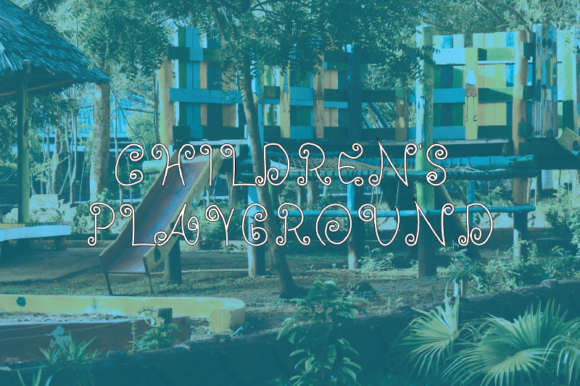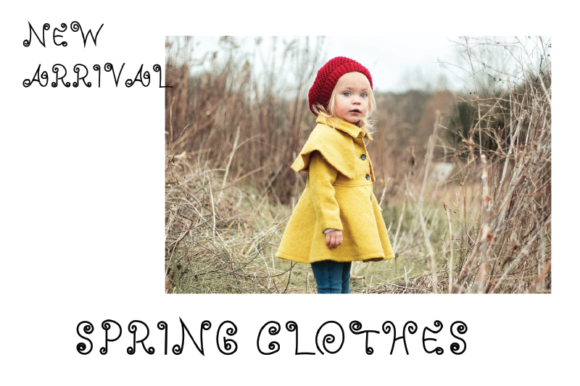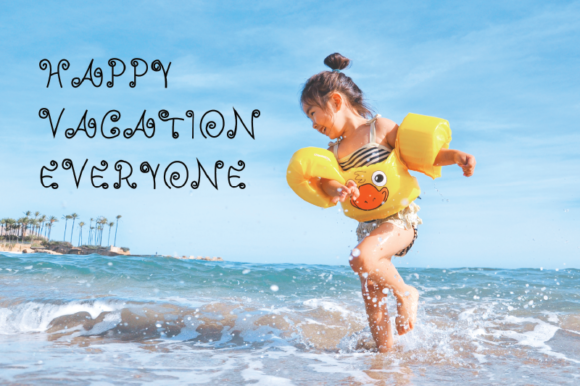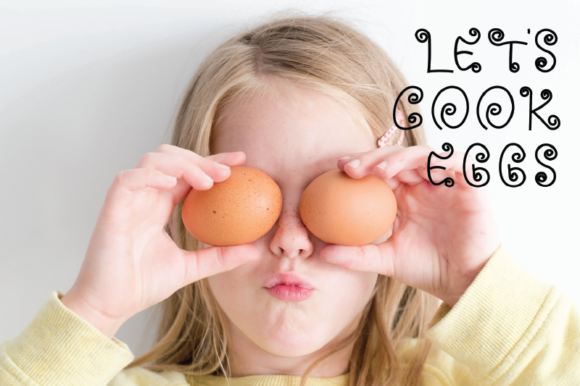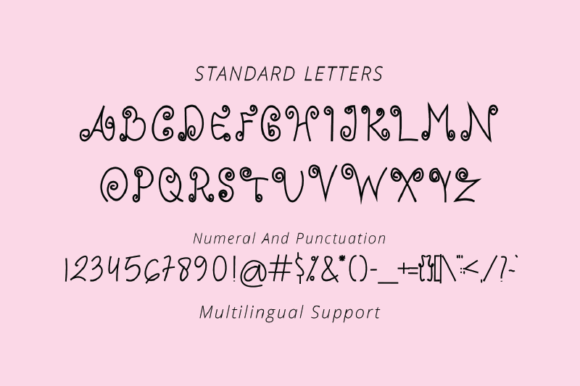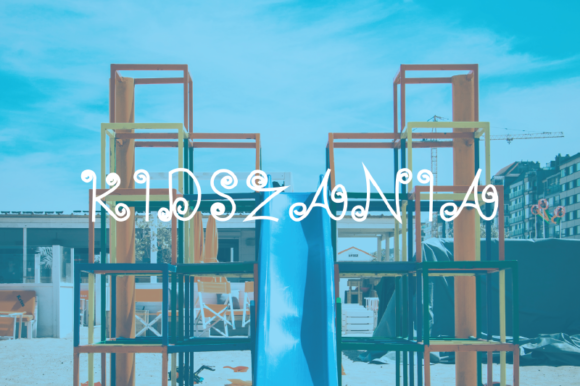
Unlocking the Magic of Kidszania Font
You know that feeling when a creative idea strikes, and you just can’t wait to bring it to life? The rush of excitement, the spark of inspiration, and the thrill of seeing your vision take shape – it’s a truly exhilarating experience. But what happens when you need a font that’s as playful and imaginative as your idea itself?
That’s where the Kidszania Font comes in – a delightful handwritten font that’s perfect for designers looking to add a touch of whimsy and fun to their projects. With its gorgeous range of playful letters, Kidszania Font is the ideal choice for anyone who wants to turn their creative idea into a true standout. Whether you’re working on a children’s book, a marketing campaign, or a personal project, this font is sure to bring a smile to your face and inspire your creativity.
- Unique Characteristics: The font features a childlike, playful, and energetic feel, making it ideal for kids’ entertainment and education brands like Kidszania.
Designer Review: Kidszania Font
Overall, I think Kidszania Font is a unique and eye-catching typeface, but it has its strengths and weaknesses.
- Expressive and playful letterforms make it perfect for children’s content, educational materials, and entertainment brands.
- The font’s friendly and approachable nature helps to create a sense of trust and engagement with the target audience.
- The bold and condensed styles are ideal for use in headings and titles, adding a dynamic touch to any design.
- The font may not be the best choice for formal or professional applications, as it can come across as too casual or childish.
- The italic styles could be more refined, as they appear to be a simple slant rather than a true italic design.
- The font’s width and proportions may not be ideal for all languages or scripts, which could lead to readability issues.
Kidszania Font is a solid choice for designers working on projects that require a playful and engaging typeface. While it may not be suitable for all applications, its unique character and expressive letterforms make it a great option for the right projects.
The Kidszania Font is ideal for:
- Children’s educational materials
- Toy packaging and branding
- Theme park and attraction signage
Tips for Getting the Most Out of the Kidszania Font
For the best results, use the Kidszania Font in bold and playful combinations, and pair it with bright and vibrant colors to create a fun and engaging atmosphere.